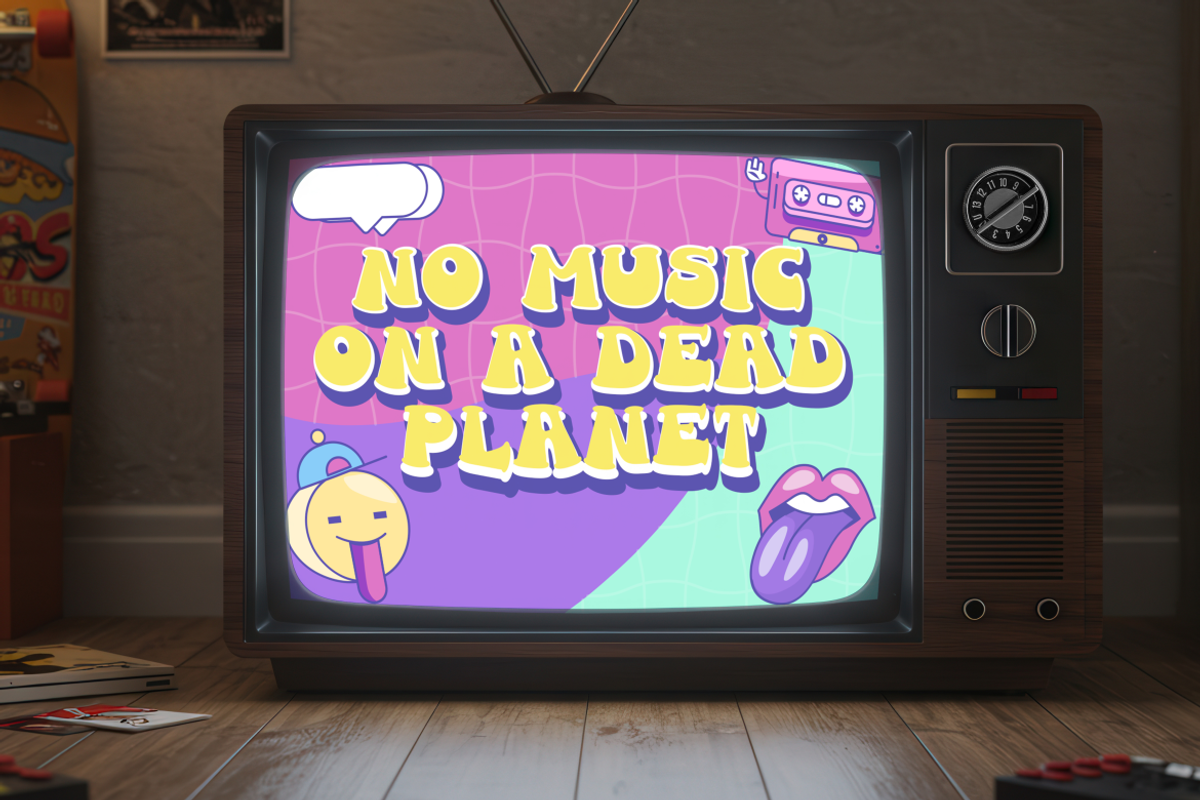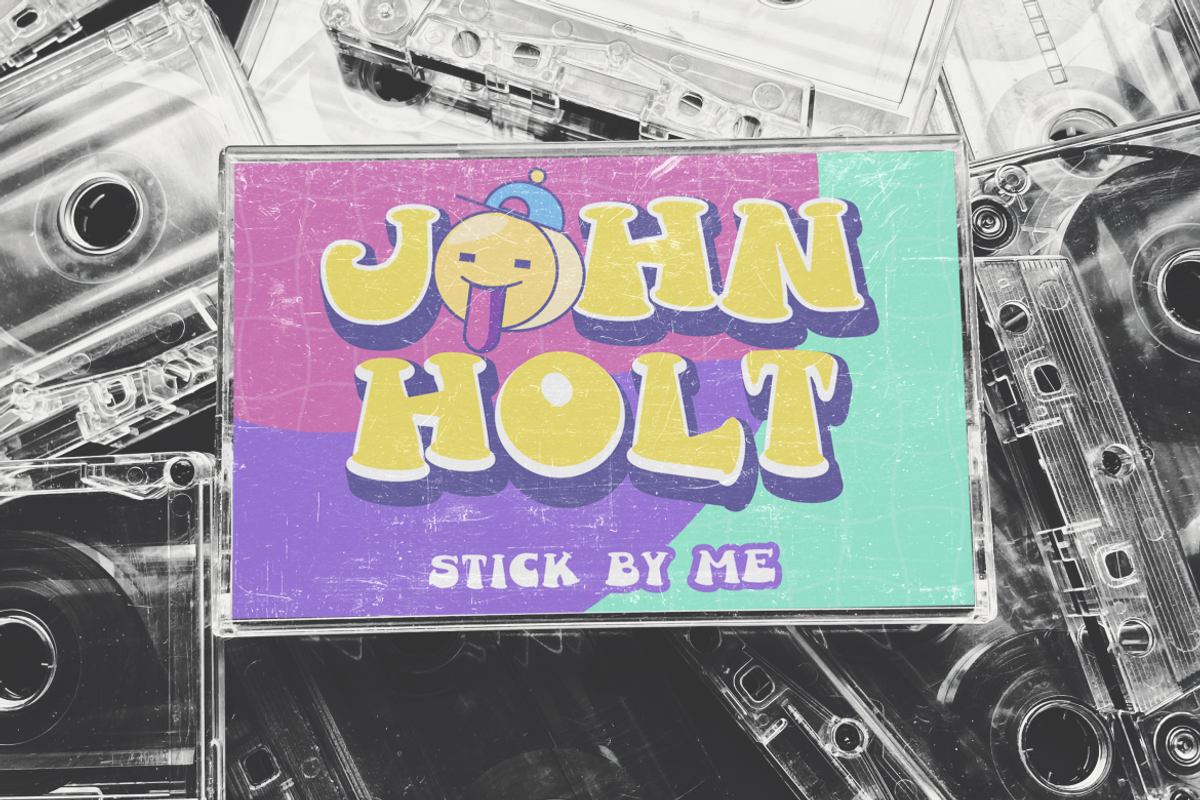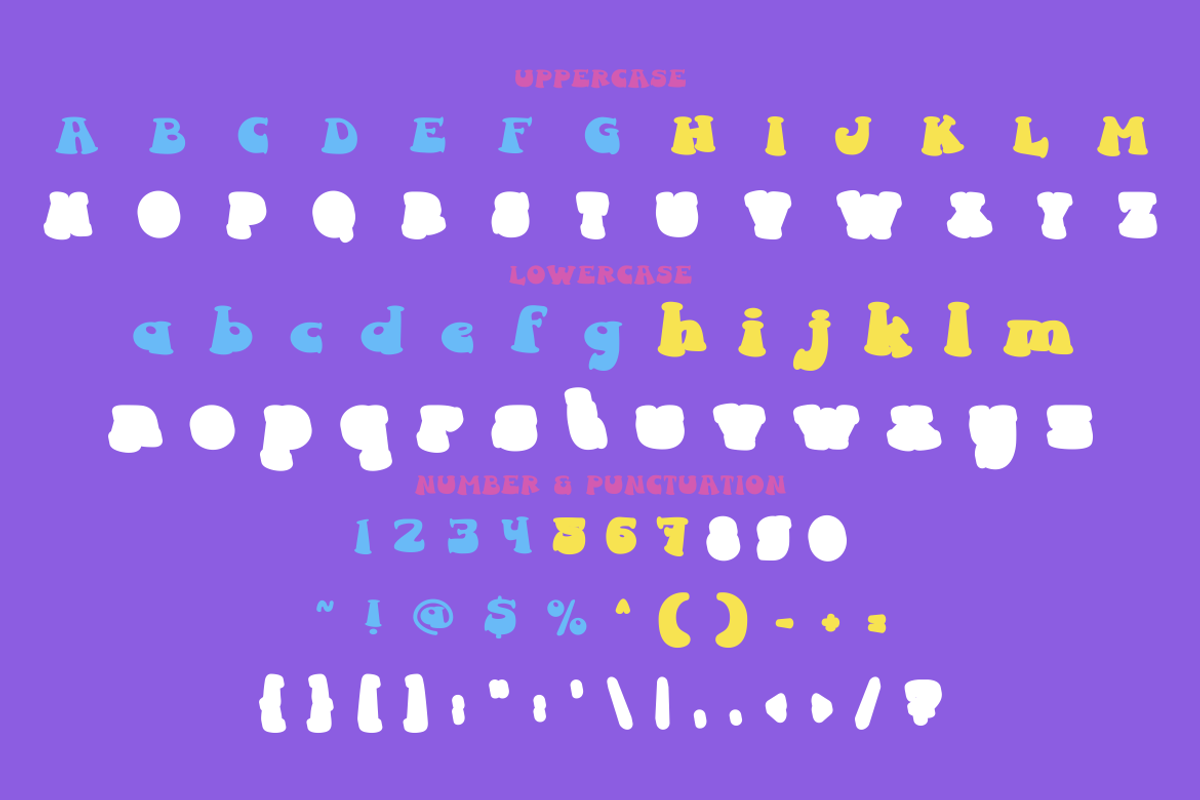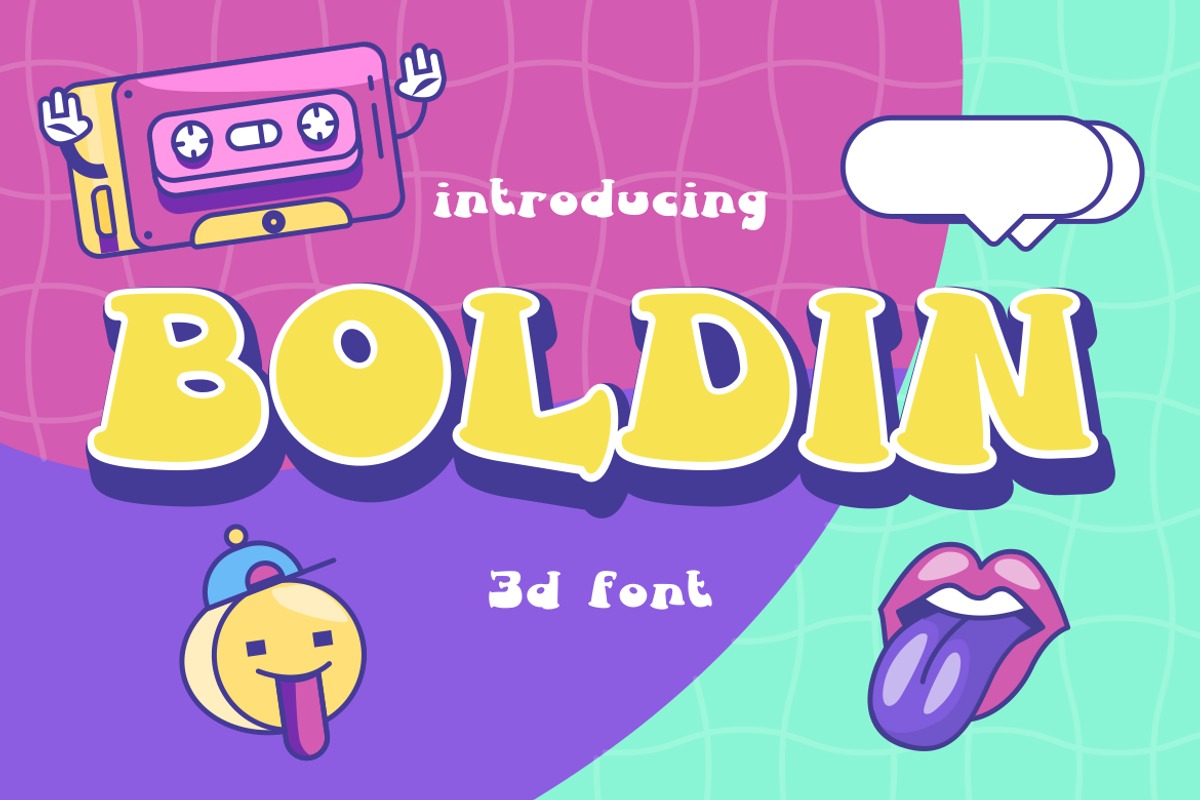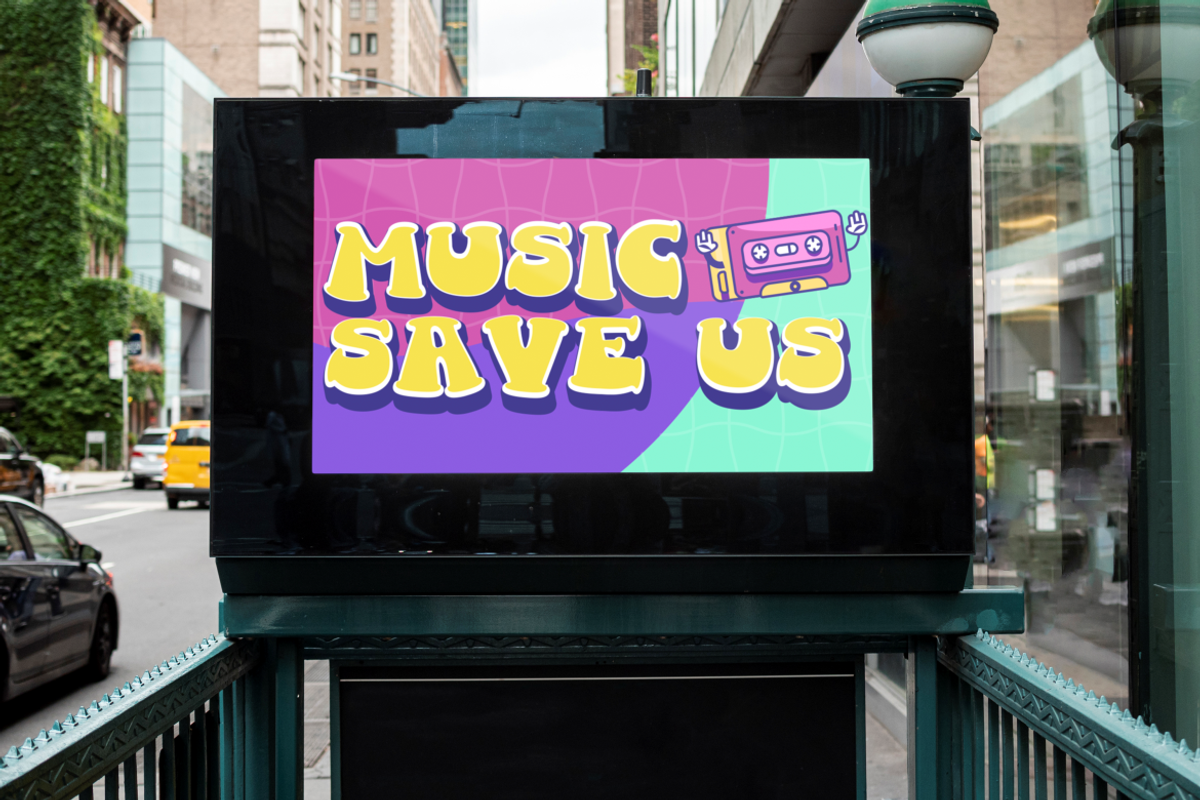
Boldin 3d Font
Boldin 3D Font is a lively and colorful typeface designed to bring joy and personality to your projects. Featuring chunky, rounded letterforms with a built-in 3D shadow effect, it delivers instant depth and a vibrant pop. Its playful style is enhanced with smooth curves, thick strokes, and a cartoon-inspired charm, making it stand out in both print and digital designs. The bold structure ensures strong readability while maintaining a lighthearted and fun character, perfect for attention-grabbing headlines.
Ideal for logos, posters, merchandise, children’s books, and packaging, Boldin is versatile yet distinct. It shines in any context that calls for bold statements, from event promotions to social media graphics. The font comes with uppercase, lowercase, numerals, and full punctuation, allowing creative flexibility in layouts. Whether you’re designing for a retro pop theme or a modern playful brand, Boldin’s layered 3D look adds impact, warmth, and a touch of nostalgia to every project.